Royal Futura 800 (1958)
If you were to judge a typewriter solely by its looks, then the Royal Futura 800 would be a winner. But when you start typing on this typewriter, it becomes quickly apparent that this is not the machine for the serious writer. However, what makes this typewriter unique is the typeface. It has a cool aesthetic that is whimsical and fun. The action is nice enough, just not real solid. It makes a hollow sort of sound, and does not fill you with confidence. Looking at the marketing materials, suggests that it was intended for the home user with only the occasional typing needs. And with a wide range of colors, the Royal Futura 800 is sure to fit with any home decor. It’s great to look at, but when you start banging out words, you’re left with an empty feeling. I’m not sure why it feels this way, since the typewriter feels solid and heavy and has the rugged Royal name. It’s a user-friendly machine, with clearly marked buttons for setting margins and columns. They’re labelled “Magic” as if there’s a little genie living inside your typewriter, ready to do your bidding. But the magic fades when you start typing. If your writing project is not too ambitious, then it’s a fine typewriter with loads of style. And again, that killer typeface! Way cool. That alone is worth the price.
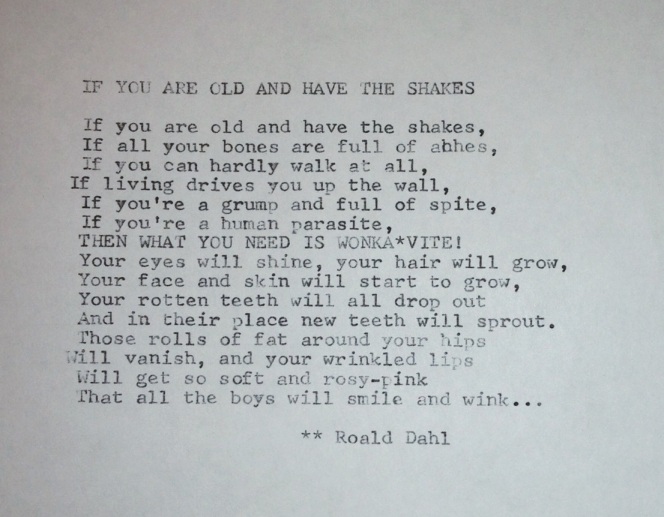
Typeface varies from machine to machine. Not all Futuras have the same typeface.
As a typewriter engineer of over forty years now I really have to disagree with this article.
I have both rebuilt and personally used several Futura’s over the years and they really are absolutely beautiful machines to use if the carriage has not been knocked heavily in the past and if they are serviced and set up correctly. The hollow feel you have described when typing can often be atributed to many things such as wear in the ribbon reverse pawl and/or a worn or hardened platen which no longer absorbs the shock of the slugs.
Another problem we often hear of now from those people new to buying older typewriters is the the noise or sound of the machine itself and of the variation in typeface clarity without ever considering that it is their own erratic four fingered typing skills which are often discovered to be the culprit even when the platen is found to be in excellent order.
Typists use all ten fingers. Amatuers often three of four at most, and forget the keys have to be sharply and snappily struck and not lightly tapped
Rarely are slugs to be found off their feet (not striking the platen squarely) but of course, if the platen has been resurfaced in the past and is the original, that also causes a lot of clarity problems, as do both portable and business machines that have been used for cutting old Roneo stencils as the wax in the stencil papers often caused the platens to swell unevenly over the years.
Remember, none of these faults will be obvious when you buy online, particularly from machines sold on the free ads pages or auction websites so be warned that although any classic machine may well look great from a picture, it may still run like a three legged dog and be a costly mistake when you finally get to type on it so always insist on seeing at least a sentence which has been previously typed on the particular machine before buying – and also ask to see if the machine is in correct alignment with both capital and lower case letters such as Hh Mm Ee etc
Based on your endorsement, I’ll have to get another Futura and update the review!
And great purchasing reminders! Always ask for a typed sample! Always.
I just bought my first typewriter today at an antique shop. I know nothing about typewriters, I just was hoping to find one someday and didn’t have much money to spend. I bought a Royal Futura 800 in the dusty-bluish color for 30 dollars. It appeared to look good, but didn’t know how to use it or if it actually worked. I took it home and my dad tinkered with it a bit and we’ve found that it does work and appears to be in good shape. We have been able to type a bit on it, but it will need to be cleaned. If you have any advice about this machine that might prove helpful, I’d appreciate it!
A new typewriter! How fun! Congrats. You’ve got a fun machine. I love the colors in those Futuras.
About the only thing that I ever clean are the type slugs. If it hasn’t been used or cleaned in decades, it can have ink and gunk in the slugs. I use a toothbrush plus some Goof Off. Otherwise, if it works, I don’t monkey around with other cleaning for fear of screwing it up! As long as it has clean copy, it’s good to go!
Hi John, I’ve take mine apart – just for practice. A clip-like piece fell out of each side as I removed the sides. I didn’t see them before they fell out and have no idea how/where to put them back in. I would love to talk to you about it.
Thanks for the review, good info. I agree, that typeface is reason alone to seek out Futuras. The typeface is apparently called “Merit”, and was the “standard” typeface on most Futuras. However, as Mark above points out, there were many other typefaces available. I find the Futura an eminently enjoyable typewriter; it’s no Quiet Deluxe, but then again, not many other typewriters are either.
I purchased a Royal 600 Futura online a few days ago before reading your review and of course my heart sank a little. Still waiting for it and we’ll see – heartened in the meantime however by John’s response in ’16. I bought it for three reasons: cool look; great name; nifty type font (as mentioned) and – bonus reason – the top flipping up when you press the ‘Royal.’ From the looks of the typing sample they sent (see link) this might work out better than the one you have/tried; I hope so. I am in the opposite camp with the Olivetti Studio 44 – I love the clunky feel by the type itself (even after changing the ribbon) is rather ragged. Might require some pro help. I still love it, though: https://www.etsy.com/transaction/1498729669
Between this review and all the comments, I can only smile that only us typewriter collectors can appreciate. It seems there can be no agreement on what is a “good”, “not so good”, or “the best” typewriter, there are so so many variables in taste, and these old machines come in wide ranging conditions. My first two typewriters, bought years ago in complete ignorance (maybe I read something online) were a Futura 800 and a Hermes 3000. I could not decide which one I liked typing on better, there were pros and cons. The Future was much more attractive than the late-model 3000. I just bought my 3rd Futura, I find the gorgeous lines and colors irresistible. Very many machines later, I now know that neither of my first machines are my favorite typers, or lookers, Are any of the Futura 800’s in my top 10? Probably not quite. But this evolved QDL is a great machine and a looker, don’t be dissuaded!
I’m curious…which is/are your favorites?